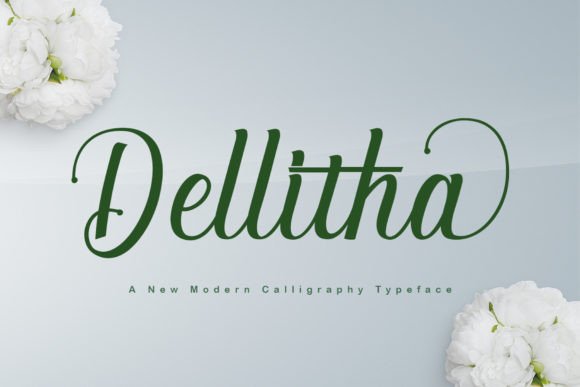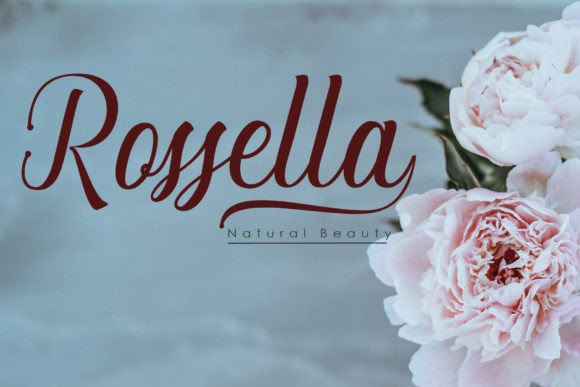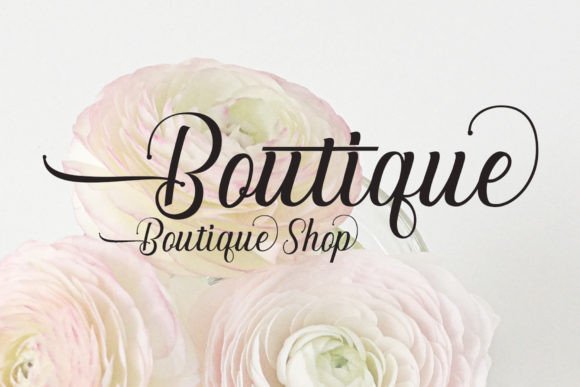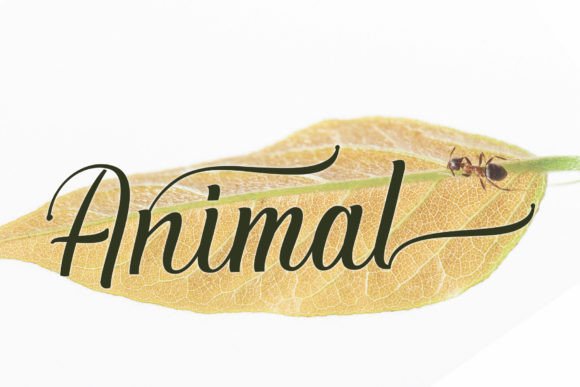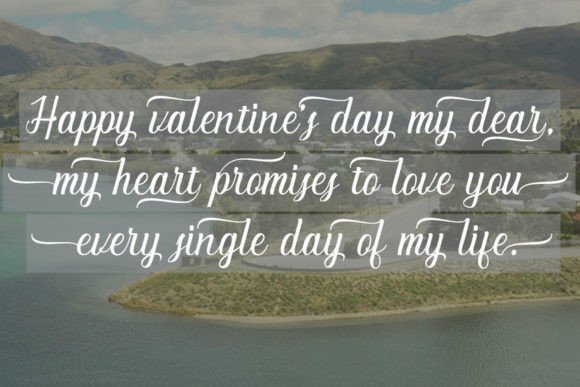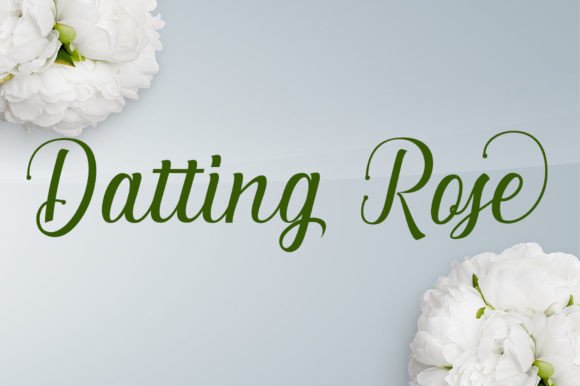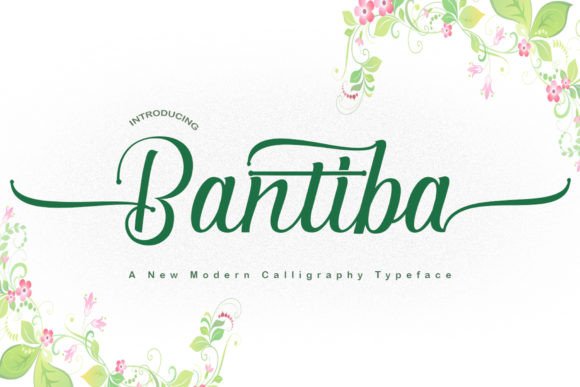
Bantiba Font: The Epitome of Delicate Elegance
In the realm of typography, few fonts manage to strike a balance between elegance and versatility. Bantiba Font, however, is a shining exception. This delicate and elegant handwritten font has captured the hearts of designers and crafters alike with its distinct and well-balanced letters, making it a masterpiece in the world of typography.
The Charm of Bantiba Font
Bantiba Font boasts an incredibly versatile style that can elevate any design to spectacular heights. Its charm lies in its ability to adapt to various design contexts, from elegant wedding invitations and sophisticated branding to whimsical craft projects and captivating digital content. The font’s delicate nature ensures that it brings a touch of refinement and poise to any project it’s a part of.
Distinct and Well-Balanced Letters
One of the standout features of Bantiba Font is its distinct and well-balanced letters. Each letterform is meticulously crafted to ensure that the font flows smoothly and reads effortlessly. This attention to detail not only makes Bantiba a pleasure to read but also adds a layer of professionalism to any design it’s used in. Whether you’re working on a logo, a banner, or a comprehensive brand identity, Bantiba’s balanced letters are sure to impress.
The versatility of Bantiba Font is truly one of its most compelling attributes. Designers and crafters can use it to create a wide range of designs, from the subtle and understated to the bold and expressive. Here are a few ways you can leverage the versatility of Bantiba Font:
• Wedding and Event Design: Use Bantiba to create stunning wedding invitations, place cards, and event banners that exude elegance and sophistication.
• Branding and Logo Design: Bantiba’s elegant style makes it an excellent choice for branding and logo design, especially for businesses that want to convey a sense of luxury and refinement.
• Digital Content: Enhance your digital content, such as blog posts, social media graphics, and email newsletters, with Bantiba’s delicate and elegant touch.
• Crafting and DIY Projects: Bantiba Font can also be used in various crafting and DIY projects, such as handmade cards, scrapbooking, and personalized gifts.
Why Designers and Crafters Love Bantiba
Designers and crafters have fallen in love with Bantiba Font for several reasons:
• Ease of Use: Bantiba is incredibly easy to use, even for those who are new to design. Its clear and legible letterforms make it simple to create beautiful designs without a steep learning curve.
• Customization: Bantiba offers a range of customization options, allowing designers and crafters to tailor the font to their specific needs and preferences.
Font Name Bantiba Font
Author Polem
Bantiba Font is more than just a typeface; it’s a tool for creativity and expression. Its delicate and elegant style, combined with its versatility and ease of use, makes it an invaluable asset for designers and crafters. Whether you’re looking to create sophisticated branding, beautiful event designs, or captivating digital content, Bantiba Font is sure to exceed your expectations. So, fall in love with Bantiba’s incredibly versatile style and use it to create spectacular designs that leave a lasting impression.